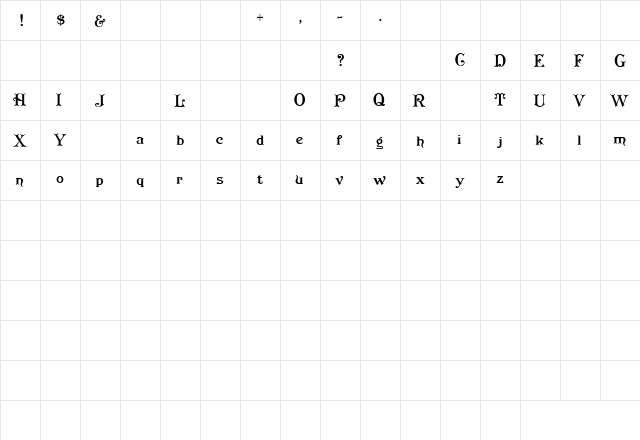
redraw3a Regular Font Preview
redraw3a Regular
redraw3a Regular Font Details
Design Context for redraw3a Typeface
redraw3a takes a measured approach to typography — its balanced proportions and neutral character make it a reliable workhorse for both digital and print work.